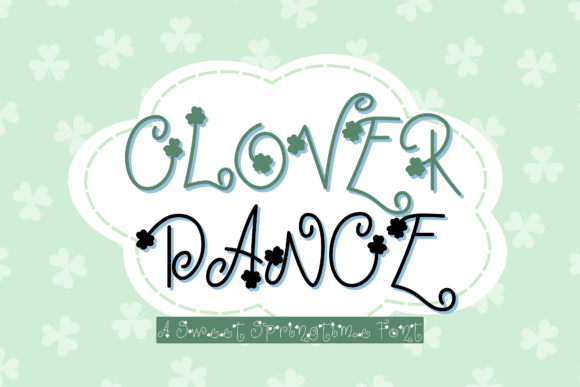
Clover Dance Font: The Perfect Hand-Lettered Font for St. Patrick’s Creative Projects
Are you looking for a unique and playful font to add a touch of magic to your St. Patrick’s Day creative projects? Look no further than the Clover Dance Font! This hand-lettered font is specifically designed to bring a fun and friendly feel to your work, making it perfect for invitations, prints, social media graphics, and more.
What Makes Clover Dance Font So Special?
- Playful Curves: The Clover Dance Font features playful curves that add a whimsical touch to your text. Its smooth and flowing lines make it perfect for creating eye-catching headlines and titles.
- Delightful Style: This font boasts a delightful style that is sure to capture the essence of St. Patrick’s Day. Its charming and friendly feel makes it ideal for creating festive and engaging content.
- Delicate Lines: The Clover Dance Font features delicate lines that add a touch of elegance to your text. Its intricate details make it perfect for creating beautiful and sophisticated designs.
- Adorable Clover Leaves: One of the standout features of this font is its adorable clover leaves. These tiny details add a touch of magic to your text and make it truly unique.
How to Use Clover Dance Font in Your Creative Projects
The Clover Dance Font is incredibly versatile and can be used in a variety of creative projects. Here are just a few ideas to get you started:
- Invitations: Use the Clover Dance Font to create festive and eye-catching invitations for St. Patrick’s Day parties, events, and celebrations.
- Prints: Add a touch of magic to your prints with this charming font. Use it to create beautiful posters, flyers, and brochures that showcase your brand’s personality.
- Social Media Graphics: Take your social media graphics to the next level with the Clover Dance Font. Use it to create engaging and shareable content that stands out from the crowd.
- Logos and Branding: This font can also be used to create unique and memorable logos and branding materials. Its playful and friendly feel makes it perfect for businesses that want to showcase their fun and creative side.
The Benefits of Using Clover Dance Font
So why choose the Clover Dance Font for your St. Patrick’s Day creative projects? Here are just a few benefits of using this amazing font:
- Unique and One-of-a-Kind: The Clover Dance Font is truly unique and one-of-a-kind. Its playful curves, delightful style, delicate lines, and adorable clover leaves make it a standout font that will set your work apart from the rest.
- Easy to Read: Despite its playful and whimsical feel, the Clover Dance Font is incredibly easy to read. Its clear and legible lines make it perfect for creating content that is both fun and functional.
- Versatile: This font is incredibly versatile and can be used in a variety of creative projects. Whether you’re creating invitations, prints, social media graphics, or logos, the Clover Dance Font is the perfect choice.
- Fun and Friendly: The Clover Dance Font is perfect for adding a touch of fun and friendliness to your work. Its playful and whimsical feel makes it ideal for creating content that is engaging, shareable, and memorable.
Tips for Using Clover Dance Font
Here are a few tips for using the Clover Dance Font in your creative projects:
- Use it Sparingly: While the Clover Dance Font is incredibly fun and playful, it’s best to use it sparingly. Use it to create eye-catching headlines and titles, but stick to a more traditional font for body text.
- Experiment with Colors: The Clover Dance Font looks amazing in a variety of colors. Experiment with different shades of green, rainbow colors, and more to find the perfect look for your project.
- Pair it with Other Fonts: Don’t be afraid to pair the Clover Dance Font with other fonts. Its playful and whimsical feel makes it perfect for pairing with more traditional fonts to create a unique and eye-catching look.
- Have Fun: Most importantly, have fun with the Clover Dance Font! Its playful and friendly feel makes it perfect for creating content that is engaging, shareable, and memorable.
The Clover Dance Font is the perfect hand-lettered font for your St. Patrick’s Day creative projects. Its playful curves, delightful style, delicate lines, and adorable clover leaves make it a truly unique and one-of-a-kind font. Whether you’re creating invitations, prints, social media graphics, or logos, this font is sure to add a touch of magic to your work. So why wait? Download the Clover Dance Font today and start creating fun and engaging content that stands out from the crowd!